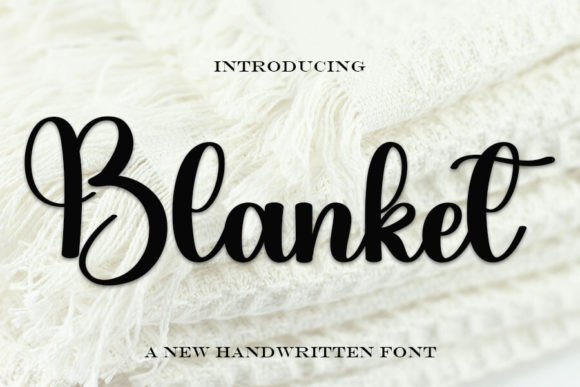
Journey to a world of elegance and charm with Blanket Font, a captivating script font that will enchant your designs with its timeless beauty. Step into a realm of creativity where words dance with grace and personality, evoking emotions that leave a lasting impression.
Meet Blanket Font, the enchanting script font that will transport your designs to new heights of sophistication. Its meticulously crafted glyphs, each a masterpiece of digital artistry, flow together seamlessly, creating a visual symphony that captivates the senses.
With Blanket Font, you hold the key to unlocking a treasure trove of design possibilities. Its versatility knows no bounds, effortlessly adapting to a wide array of projects, from eye-catching logos and branding to heartfelt quotes and social media graphics.
Picture a logo that exudes elegance and charm, its name rendered in the exquisite curves of Blanket Font. Your brand will radiate a timeless appeal that resonates with your audience, leaving an indelible mark in the minds of all who encounter it.
Envision your quotes and sayings transformed into works of art, each letter a brushstroke in a symphony of words. Blanket Font's graceful lines breathe life into your messages, inviting readers to immerse themselves in the emotions and stories they convey.
Whether you're a seasoned designer or just starting your creative journey, Blanket Font is your perfect companion. Its user-friendly nature makes it accessible to all skill levels, allowing you to unleash your imagination and bring your ideas to life effortlessly.
Don't settle for ordinary fonts that blend into the background. Embrace the allure of Blanket Font and watch your designs come alive with a touch of magic. Let your creativity soar as you craft captivating visuals that captivate and inspire.
Welcome to the world of Blanket Font, where elegance meets innovation, and where your designs will forever be transformed. Immerse yourself in the beauty of this timeless font and unlock the full potential of your creative vision.